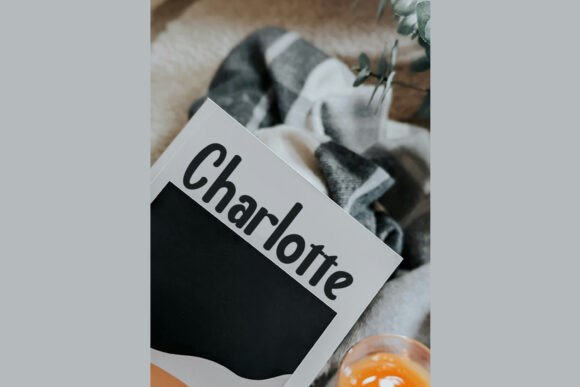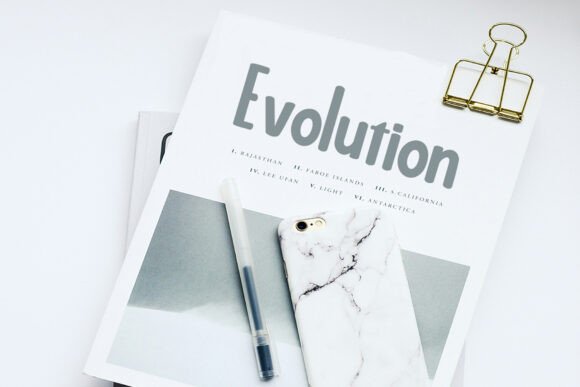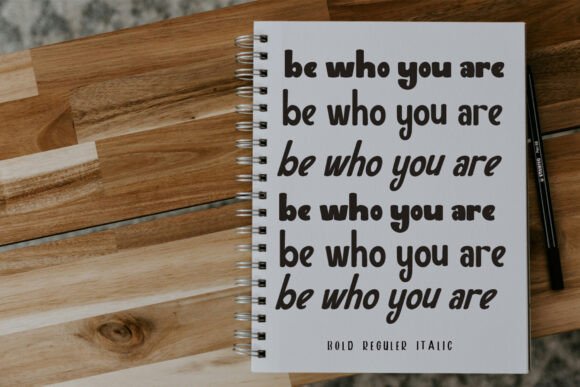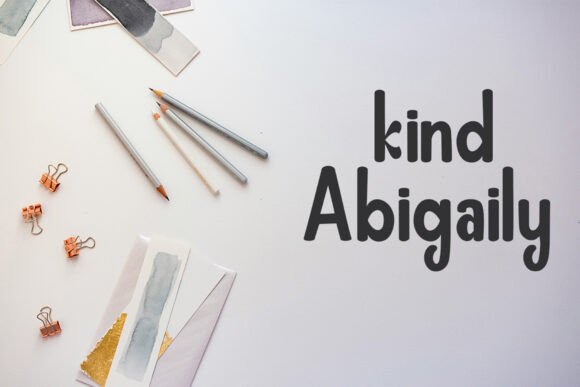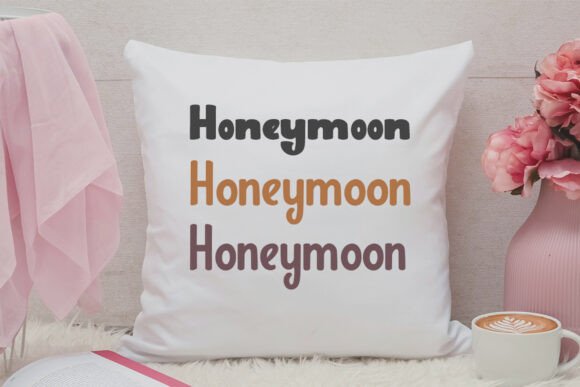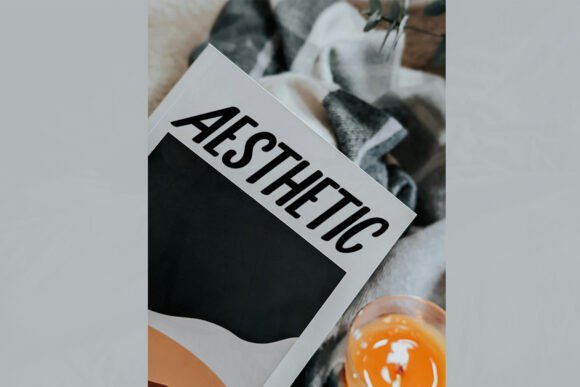
Introduction to Goldeant Font
Have you ever stared at a blank canvas, trying to find the perfect font to elevate your creative project? It’s a moment we’ve all been there – where the right typography can make all the difference between a mediocre design and a masterpiece. For designers, finding that elusive font can be a game-changer, and that’s where Goldeant Font comes in.
This modern sans-serif font is a breath of fresh air in the world of typography, offering a unique blend of geometric details and industrial design principles that’s sure to impress. Whether you’re working on a logo, advertisement, or photography watermark, Goldeant Font is the perfect design resource to give your project an elegant touch.
Key Features of Goldeant Font
- High-quality design: The Goldeant Font is a premium design resource ideal for creative projects, offering a unique blend of elegance and sophistication.
- Unique characteristics: The Goldeant Font boasts a distinctive, hand-drawn aesthetic, making it a standout design element for creative projects.
Honest Review: Goldeant Font
I recently stumbled upon the Goldeant Font, and I must say it’s a gem in the design world. This free download is a fantastic addition to any design resource collection, and it’s perfect for creative projects that require a touch of elegance.
One of the things that caught my attention was the high quality of the font. The lines are smooth, and the characters are well-defined, making it perfect for both digital and print designs. The transparent background also allows for seamless integration with any design element.
- Smooth and elegant lines
- Perfect for digital and print designs
- High quality and well-defined characters
- Limited font styles (only a few options available)
- Not suitable for bold and dramatic designs
Overall, I’m impressed with the Goldeant Font. It’s a great addition to any design collection, and it’s perfect for projects that require a touch of sophistication. While it may have its limitations, it’s a high-quality font that’s definitely worth considering for your next creative project.
Common Use Cases for Goldeant Font
The Goldeant Font is perfect for a wide range of creative projects, including:
- Event graphics and signage
- Editorial and design publications